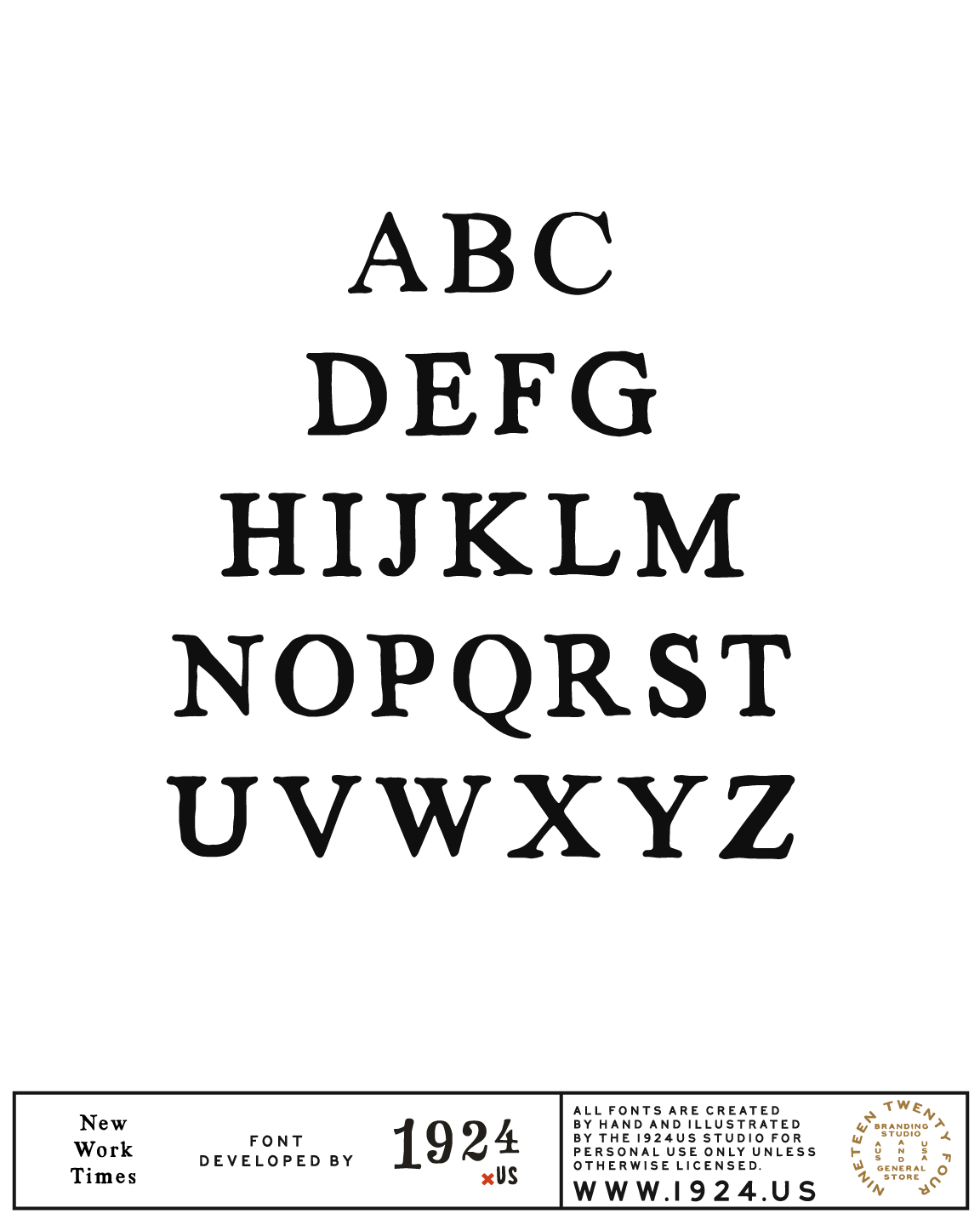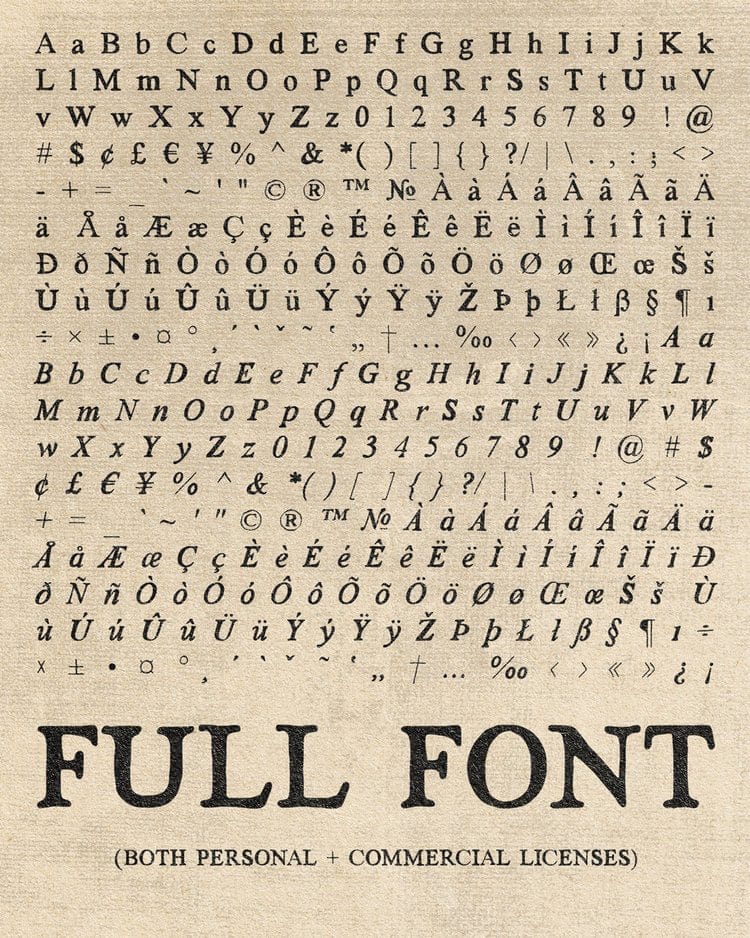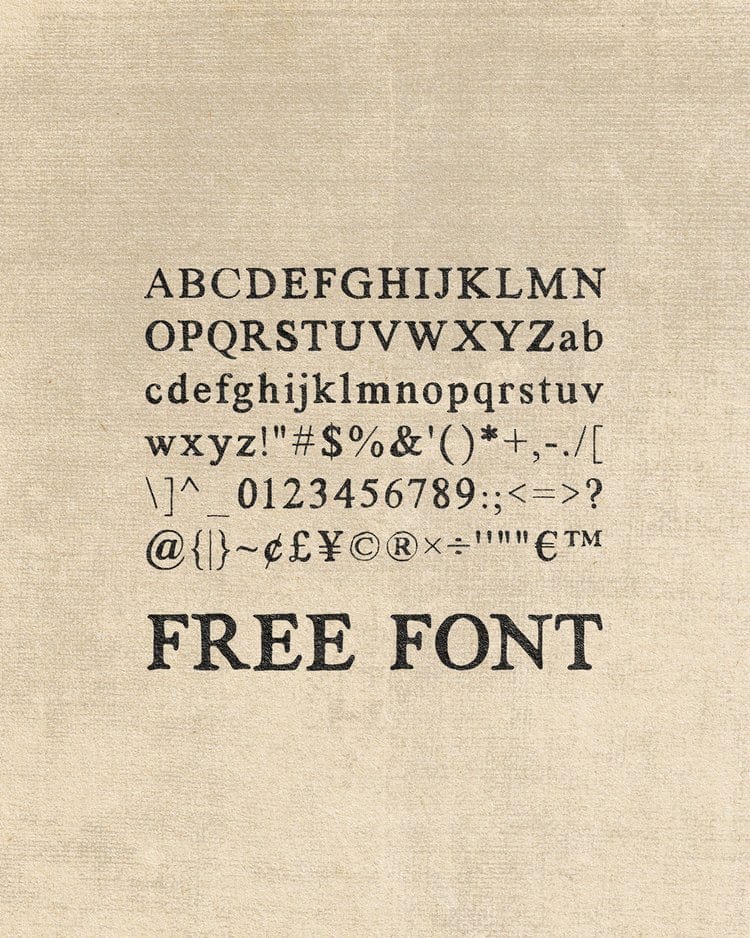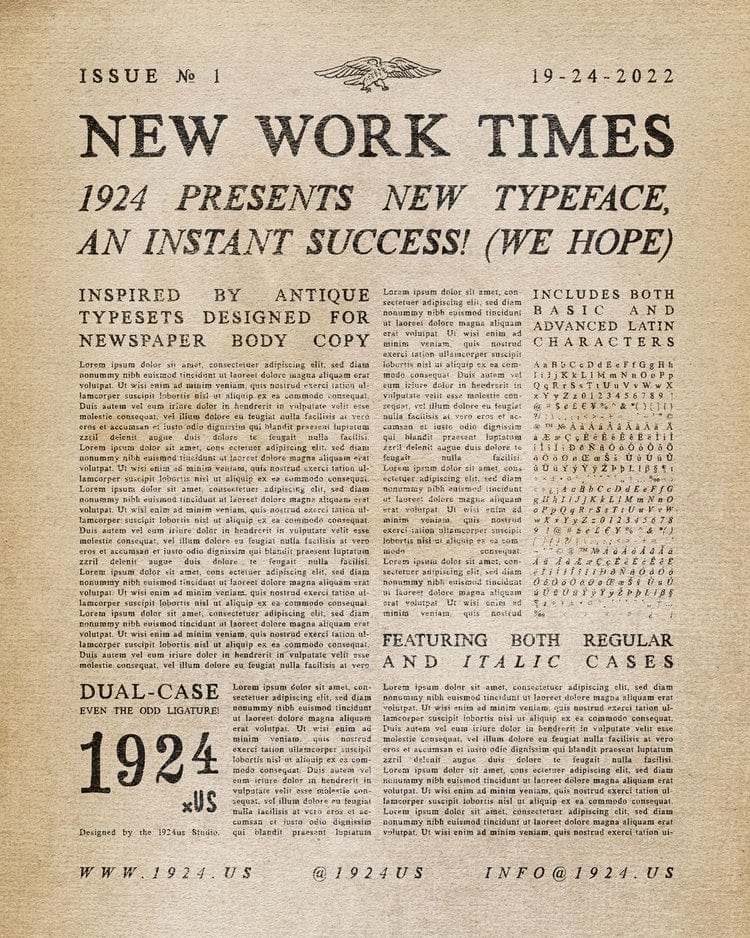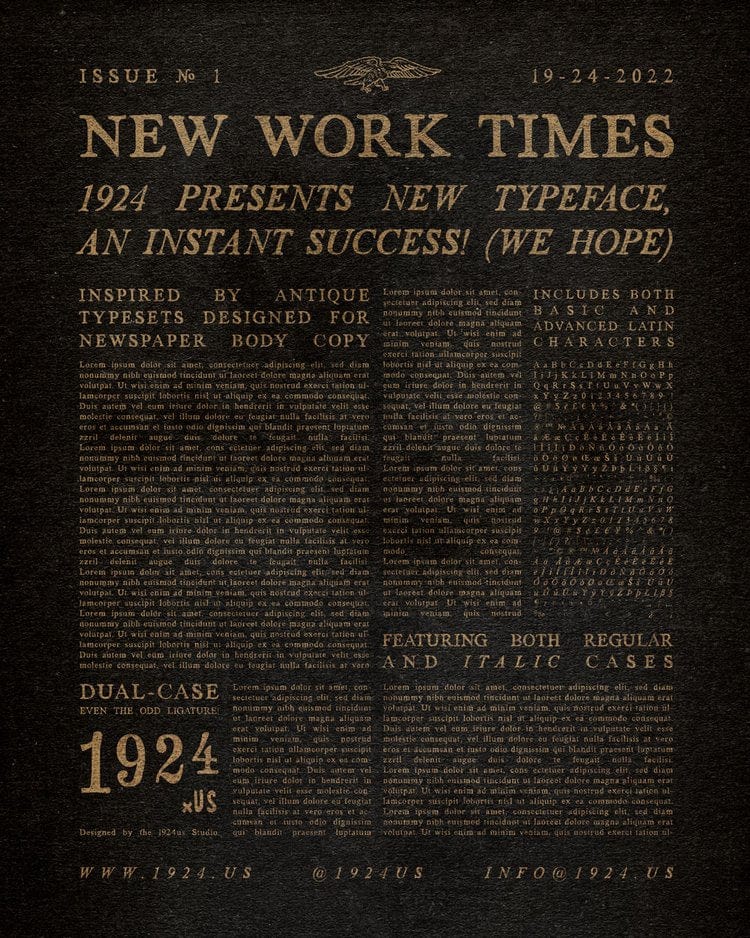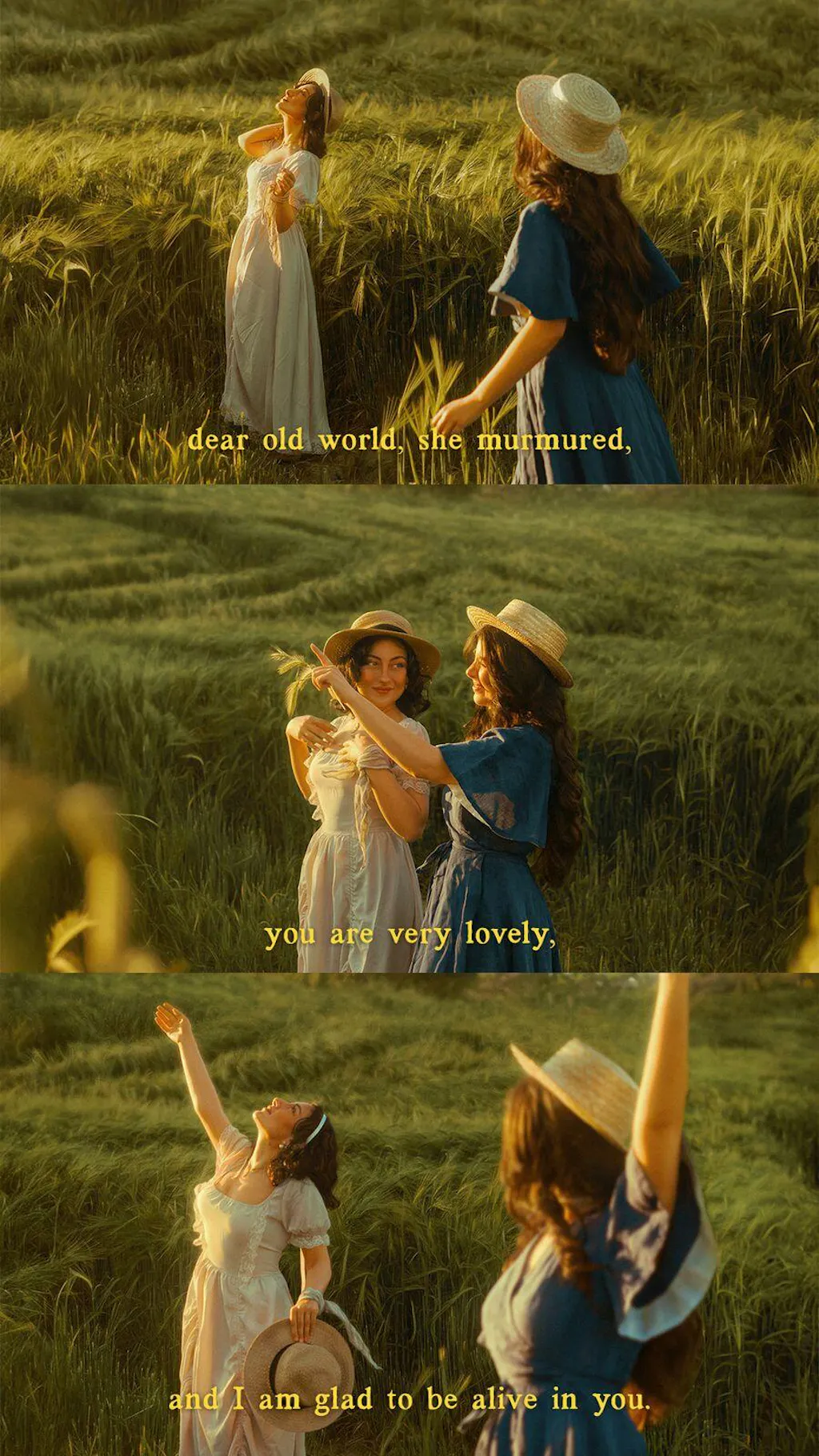
I use this font for my animations and it adds such a warm touch to the message. Amazing free font
Hi, it's @tilbegilion from Instagram. I just wanted to say how much I love the New Work Times font. It's such a beautifully crafted tool, and I use it on my IG all the time. I'll always admire this brand. Thanks for your amazing creative contribution to the world, Christian and Elle.